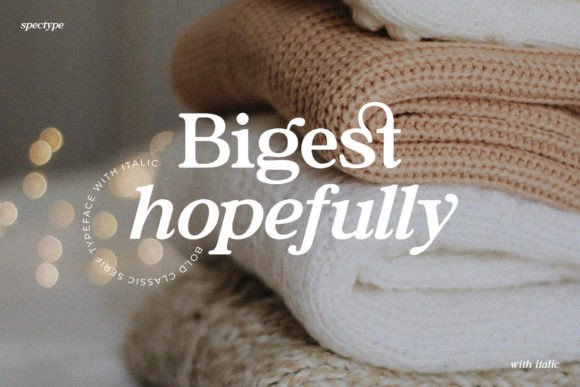
The Ultimate Guide to Bigest Hopefully Font: Elevate Your Designs with Elegance
I’ll never forget the time I was working on a high-end branding project, and my client requested a font that exuded sophistication and luxury. I scoured the internet, tried countless fonts, but nothing seemed to fit the bill. That was until I stumbled upon Bigest Hopefully. This stunning serif font has been a game-changer for my designs, and I’m excited to share its beauty with you.
First Impressions: A Classic, Clean, and Bold Style
Bigest Hopefully is a serif font that boasts a classic, clean, and bold style, making it perfect for projects that require impeccable typography and a touch of elegance. Its versatility and range make it suitable for various design applications, from logos and headings to body text and more.
- ✨ **Exceptional legibility**: Bigest Hopefully’s clear and concise letterforms make it easy to read, even at smaller font sizes.
- ✅ **High-quality design**: The font’s attention to detail and precise craftsmanship are evident in its elegant lines and curves.
- 💼 **Versatile**: With its wide range of applications, Bigest Hopefully is an excellent addition to any designer’s font library.
- 🤔 **Limited italic variations**: While the font does offer some italic styles, it would be great to see more options in the future.
- ⚠️ **Occasional kerning issues**: As with any font, some manual kerning adjustments may be necessary to achieve optimal results.
- Experiment with OpenType features, such as ligatures and stylistic alternates, to add visual interest to your text.
Designer Inspiration: The Story Behind Bigest Hopefully
Bigest Hopefully was designed by a team of typographers who sought to create a font that embodied the perfect balance of elegance and legibility. With inspiration from classic serif fonts and a dash of modern flair, Bigest Hopefully was born. Its creators aimed to provide designers with a versatile font that could be used in a wide range of applications, from luxury branding to editorial design.
Q: What type of projects is Bigest Hopefully suitable for?
A: Bigest Hopefully is suitable for a wide range of projects, including luxury branding, editorial design, advertising, and more.
Q: Does Bigest Hopefully support OpenType features?
A: Yes, Bigest Hopefully supports OpenType features, including ligatures, stylistic alternates, and glyphs.
Q: Is Bigest Hopefully easy to read?
A: Yes, Bigest Hopefully is designed with exceptional legibility in mind, making it easy to read even at smaller font sizes.